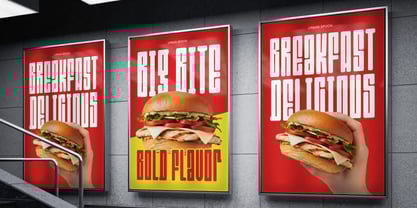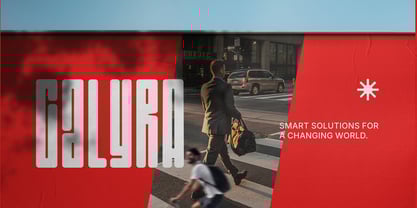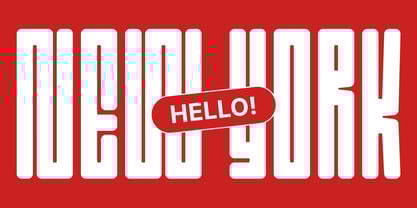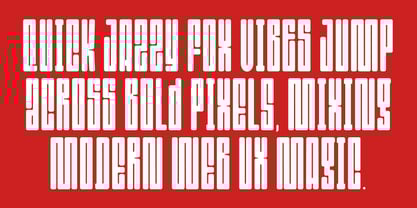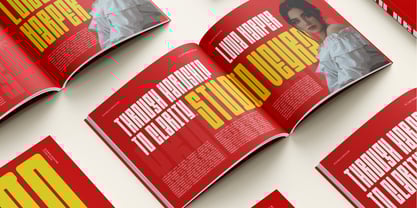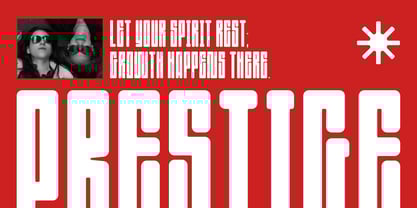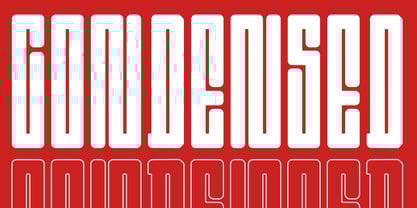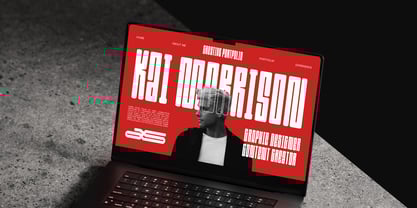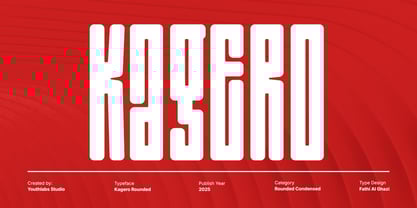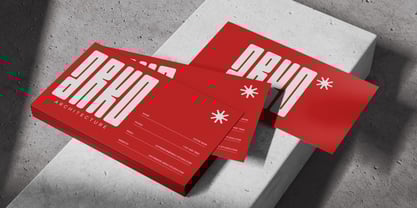
Kagero
by Youthlabs
The Kagero Font Family was designed by Fathi Al Ghazi and published by Youthlabs. Kagero contains 1 styles.
Kagero Rounded is a bold, rounded condensed display typeface designed to deliver strong visual impact with a friendly and modern tone. Its tall proportions, smooth curves, and compact width make it perfect for headlines, posters, branding, packaging, signage, and editorial layouts where space efficiency meets bold personality. Kagero Rounded balances softness and strength, giving designers a versatile display font that feels contemporary, confident, and approachable.